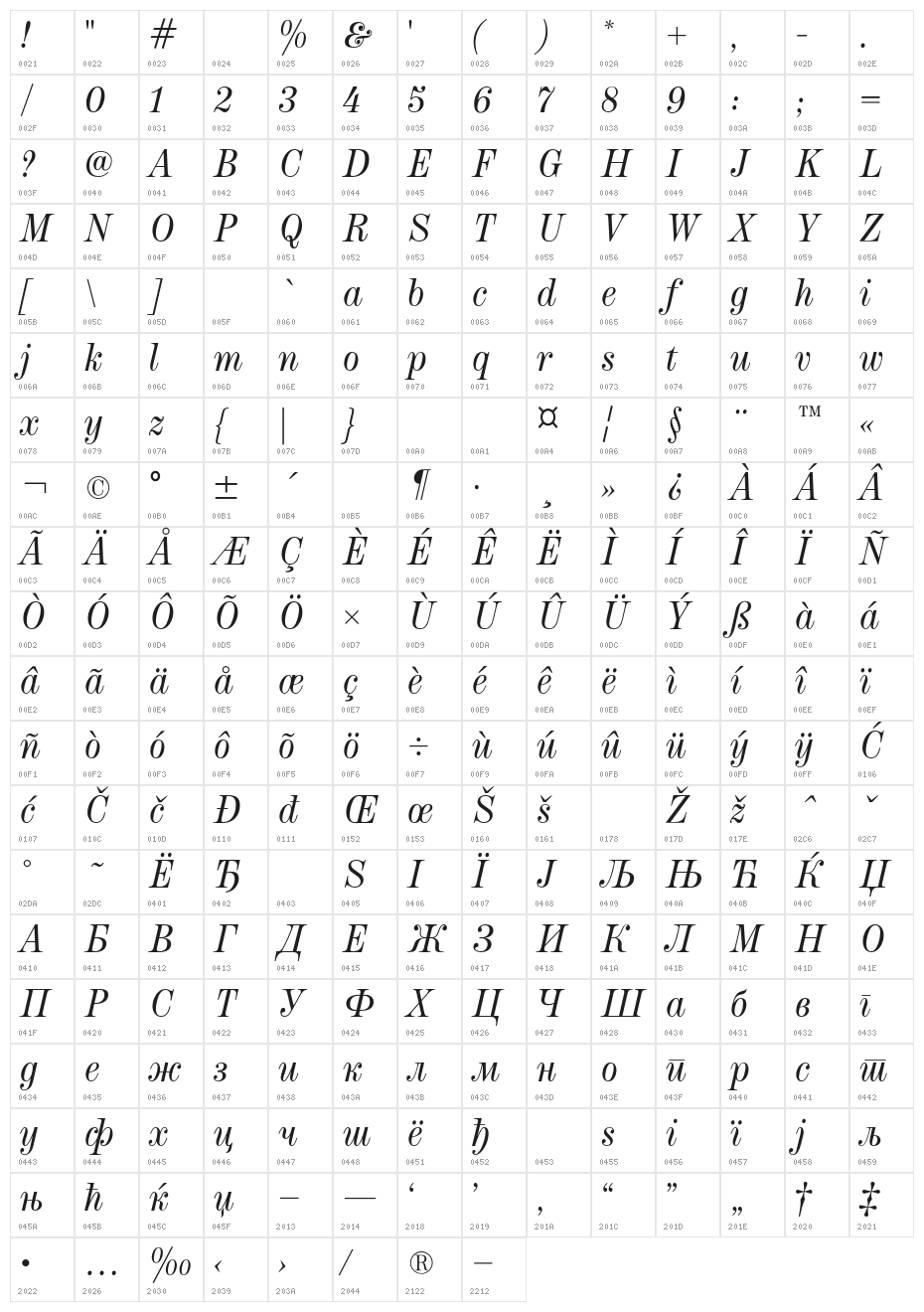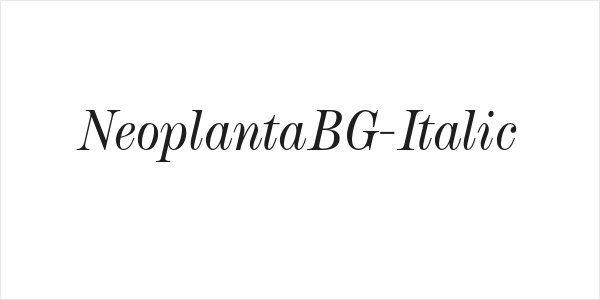
NeoplantaBG-Italic Font
NeoplantaBG-Italic Description
This elegant typeface features a sophisticated italic style with smooth, flowing curves and a refined appearance. The letters exhibit a slight slant, enhancing the dynamic and graceful look. The uppercase characters are tall and slender, while the lowercase letters maintain a consistent flow with subtle flourishes. The numerals are distinct and harmonize well with the overall design. Special characters are crafted with attention to detail, adding to the font's versatility. This typeface exudes a classic charm, making it suitable for a variety of applications.
| Proposed Projects | Ideal for wedding invitations, elegant branding, high-end product packaging, and editorial design. |